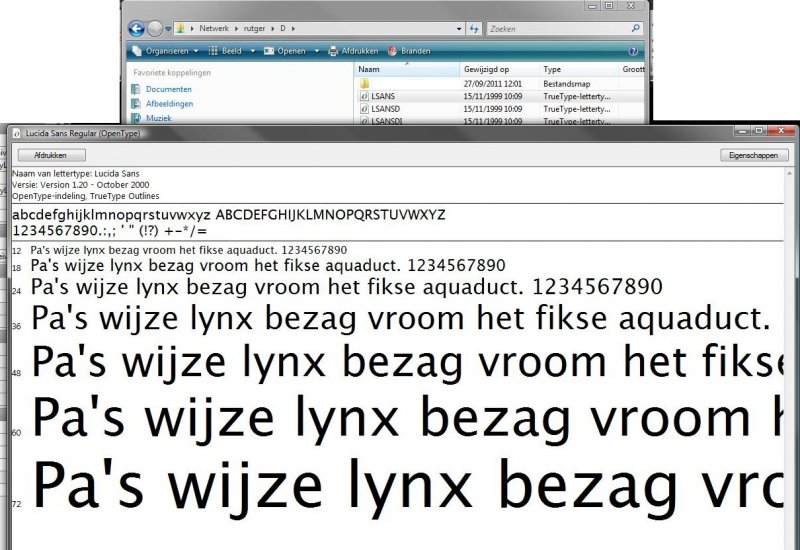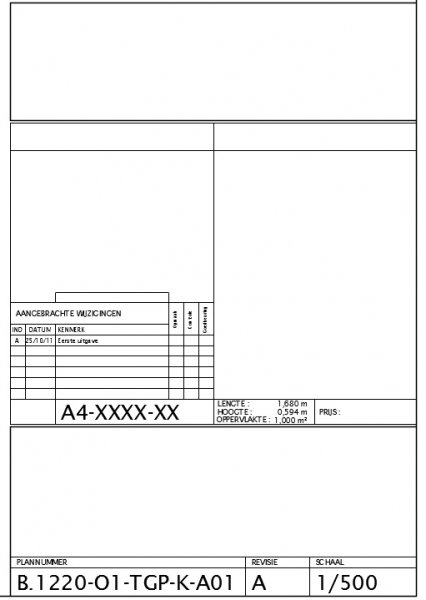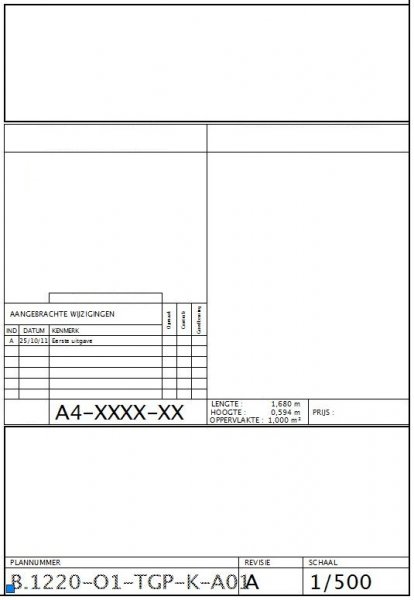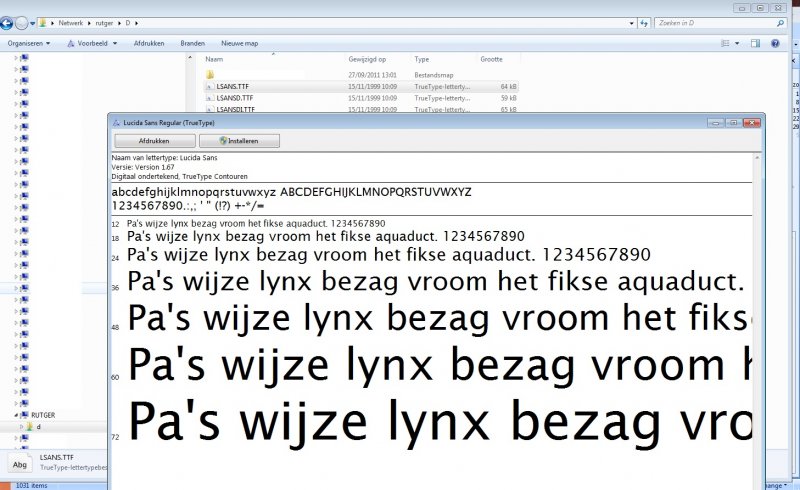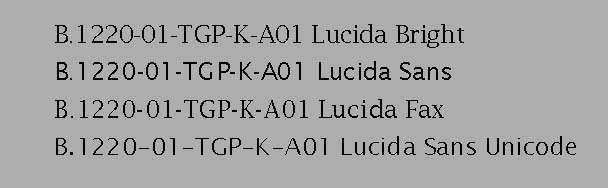
Difference in font LUCIDA (Windows Vista & Windows 7)
My colleague and myself have a problem with the font Lucida in the header of a plan we designed.
He's running Windows Vista and I am running Windows 7.
I designed the header, but now he has to make some additional plans with that same header but if he opens the file with that header, strangely enough the font Lucida he uses is not exactly the same as the one I've used although the properties show they're all the same. Another colleague with Windows 7 has no problem with it. As you can see in the attachments I've added, the '1' is not exactly the same as well as the '-' so texts don't fit the boxes they're in anymore.
We also can't really alter the font, seeing as Lucida is the font our client uses and requires for this project.
We've tried overwriting my colleague's font by my LUCIDA-font in the location C:\Windows\Fonts but this didn't resolve the problem either.
Does it print the same way it displays as well?
The difference between the two fonts is the one on the left has serifs while the one on the right is sans (without) serifs. Looks like the Lucida Sans Unicode version 5.00 font to me.
To my knowledge "Lucida" is a TrueType font which means it is a Windows font and not an AutoCAD font.
The Vista font is called Lucida Console version 5.00. Vista also shipped with Lucida Sans Unicode version 5.00 as well.
Good news. I just discovered that Windows 7 shipped with both versions of Lucida as well.
Created from within AutoCAD.
The fonts (they are TrueType by the way not SHX) are both from the same family (Lucinda) but they are different in appearance (re: serif vs. sans serif) and the kerning (spacing between letters) is different as well.
I'm using Windows 7.
Fonts are very strange. I seem to have Lucida on my machine, but it does show that even within a family of fonts, the character spacing does differ.
There is also the possibility that another Font is specified in the Text Style (Style LUCIDA can reference the font LUCIDA SANS for example)
Not only the spacing between letters but the width of individual letters can vary as well. But hey, it's all in the family, right? LOL
Rutger: Take a look at the above posts. You do not have to copy any fonts over. You both just need to be using the same version of the Lucinda font.
We've definitely established that the font I used to create the header is LSANS.TTF
But we're almost certain it's a problem with compatibility between Windows Vista and 7, because I've put the file LSANS.TTF on our internal network and when I open it there it shows it is version 1.67. When my colleague opens the same file on his Vista pc it shows it's version 1.20? With an alternative '1' and '-' So I guess Vista is not compatible with that newer version of the font? See below
So to double check I made a little word file using that same font and mailed it to him, but when he opens it, the fonts again are not the same anymore.
I guess the only solution is for my colleague to upgrade to windows 7, unless someone has another solution?
Are you just dragging and dropping the font or are you installing the font? There is a difference. Fonts must be installed.
In my opinion you both should be using Lucida Sans Unicode which, if you had bothered to look at the Microsoft link I previously supplied, shipped with Windows Vista and Windows 7 too.
very strange problem... and since it seems to be a windows problem, have you searched for a windows-forum/knowledge bank that might be able to help you?
Looking at the screen images, one font is Open Type and the other is True Type.